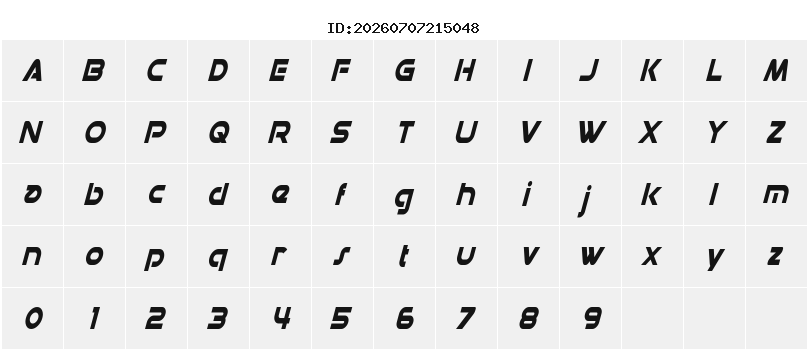
• Font Name: Datacron Condensed
• Designer: Neale Davidson
About Datacron Condensed.ttf
Datacron Condensed.ttf is a modern, elegant sans-serif font designed for ultimate readability and visual harmony. Perfect for branding, headlines, web design, and print materials.